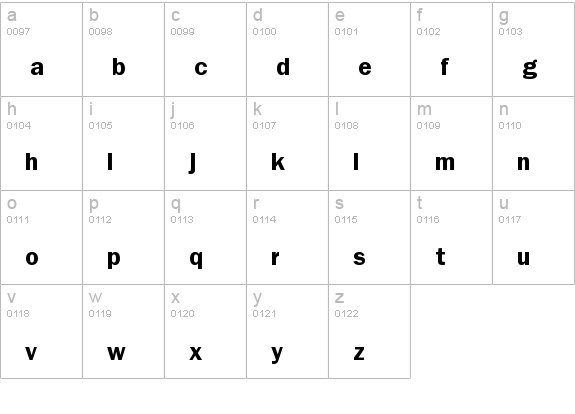
FreesiaUPC Bold is a strong, high-contrast variant in the FreesiaUPC typeface family \xE2\x80\x94 well suited to headlines, attention-grabbing titles, and strong calls-to-action.